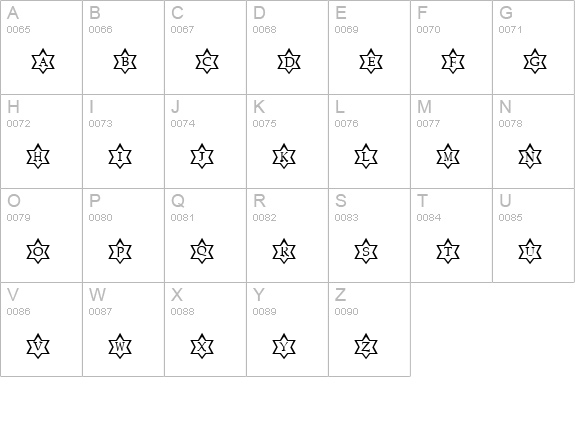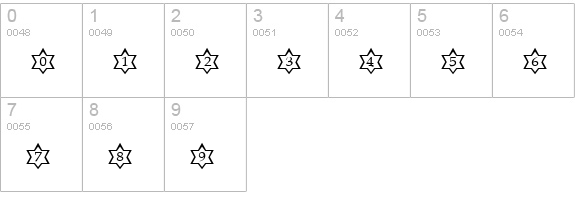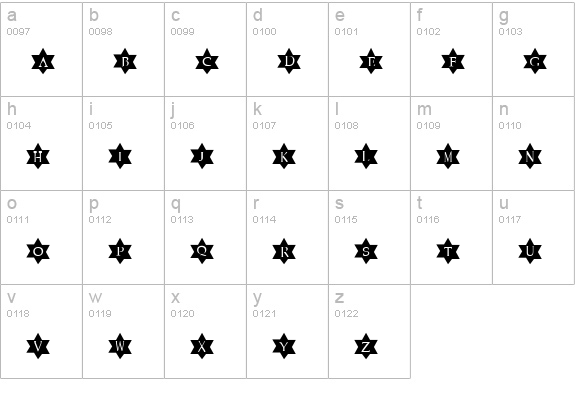
Sternschnuppe Font Details
Sternschnuppe font is a whimsical and elegant typeface that is perfect for adding a touch of magic to your designs. Its flowing curves and charming details evoke a sense of wonder and enchantment, making it ideal for projects that require a touch of fantasy. Whether you're designing invitations, greeting cards, or branding materials, Sternschnuppe font will add a delightful and unique flair to your work. And the best part? Sternschnuppe font is completely free to download at FontsMarket.com! So go ahead and unleash your creativity with this beautiful typeface without any cost. Download Sternschnuppe font today and let your designs shine with its magical charm.